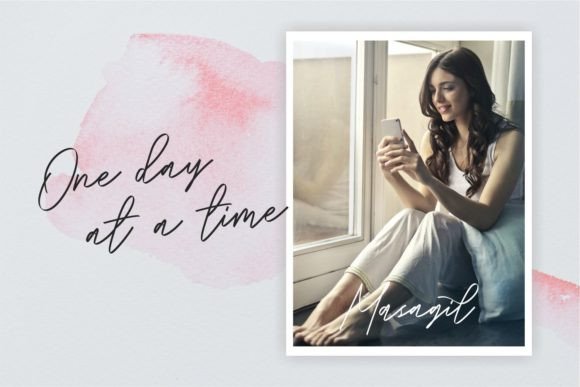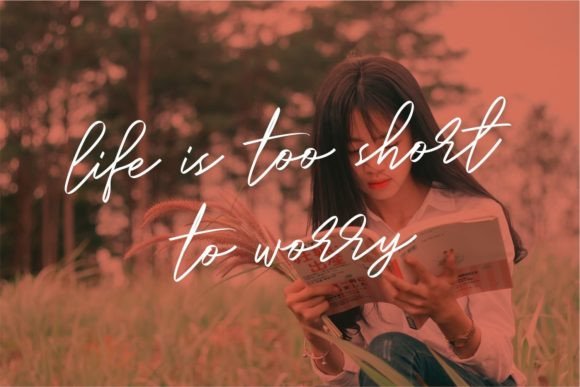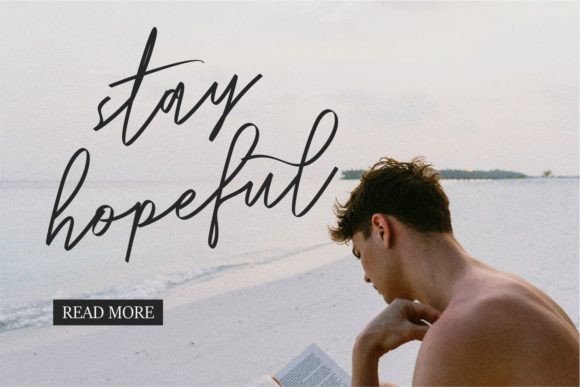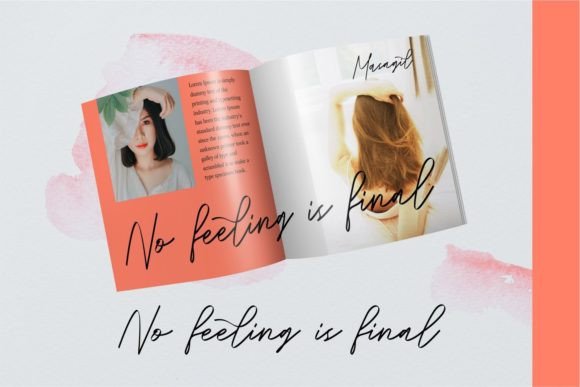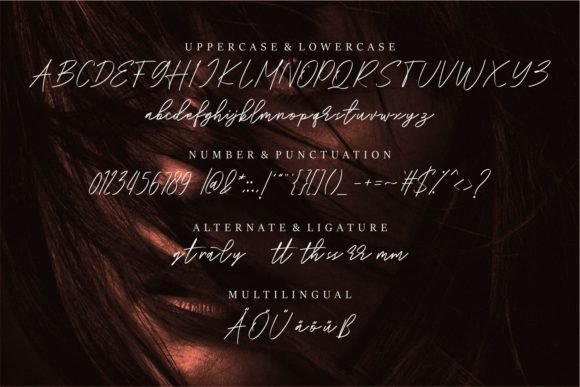
Masagil Font
A Beautiful Handwritten Script Typeface
Masagil is a refined handwritten script font crafted to bring elegance and personality to any creative project. Inspired by classic calligraphy, Masagil combines smooth curves and clean strokes to create a timeless feel. Whether you’re designing invitations, branding materials, or digital content, this font adds a polished touch to your work.
Its flowing lines and graceful details make it perfect for both formal and casual designs.
Masagil is a versatile font you’ll enjoy using again and again. It’s ideal for wedding invitations, thank you cards, and event signage. The elegant script style sets a romantic, personal tone that makes every occasion feel memorable.
For branding, Masagil is perfect for logos, business cards, and product packaging. The handwritten look helps your brand feel premium, approachable, and authentic.
This font also shines in posters, social media graphics, and promotional materials. Its smooth lines and clear letters ensure your message stays easy to read while looking sophisticated.
On social media, Masagil keeps your posts consistent and professional. Whether you’re sharing quotes, promotions, or announcements, this font elevates your content effortlessly.
Even with its decorative flourishes, Masagil remains clear and legible in any size. Balanced spacing and smooth connections between letters make your text neat, whether you’re designing large headlines or smaller captions.
For a clean and modern layout, pair Masagil with a simple sans-serif font. Use Masagil for main titles and highlight text, and the sans-serif for supporting details. This combination creates a polished, organized design that feels both fresh and elegant.
To highlight Masagil’s elegant script, use light backgrounds and soft colors. Shades like ivory, blush, and warm gray help the font stand out without overpowering your design.
When designing invitations or packaging, consider adding subtle illustrations or delicate borders to enhance the handwritten feel.
On social media, embrace white space to keep your content clear and let your text be the main focus.
Think about the mood you want to create. Masagil is perfect for projects that should feel romantic, refined, and timeless.
Masagil isn’t just another handwritten script—it’s a creative asset that transforms every design with elegance and personality. From professional branding to personal keepsakes, this font adapts seamlessly to any project and brings a polished look to your work.
Adding Masagil to your font collection means you’ll always have a versatile, beautiful option ready for any purpose. Whether you’re creating logos, wedding invitations, or social media graphics, this font makes every project feel special and memorable.